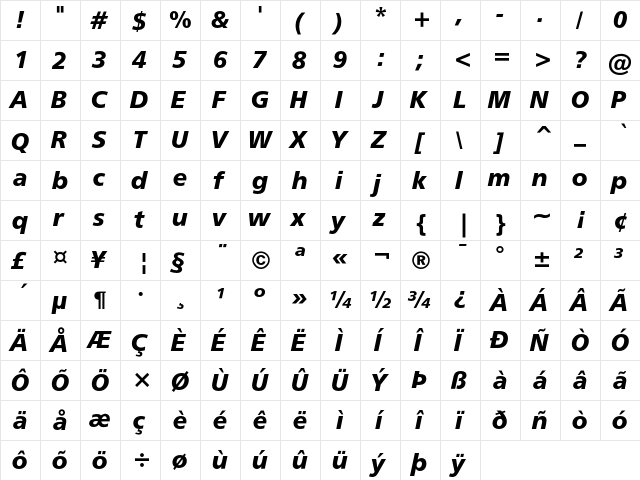
Humanist 777 Black Italic Font Preview
Humanist 777 Black Italic
Design Context for Humanist 777 Typeface
Humanist 777 offers clean, dependable letterforms without strong stylistic allegiance, making it a practical choice for designers who need flexibility. The dynamic lean of this cut emphasises speed and emphasis in any layout.
Pro Tip: Use Humanist 777 for emphasis, pull quotes, and subheadings where its slanted energy can add rhythm to the layout.